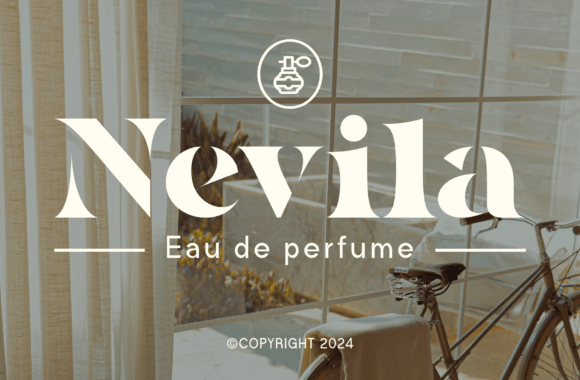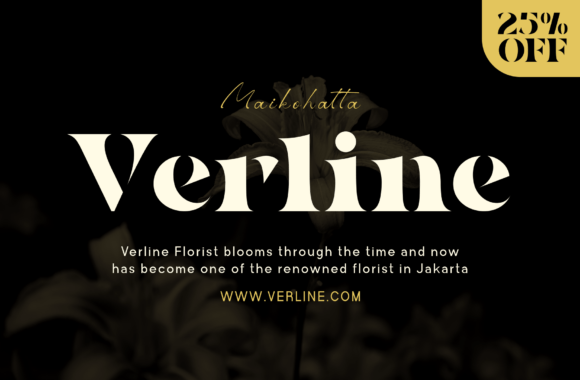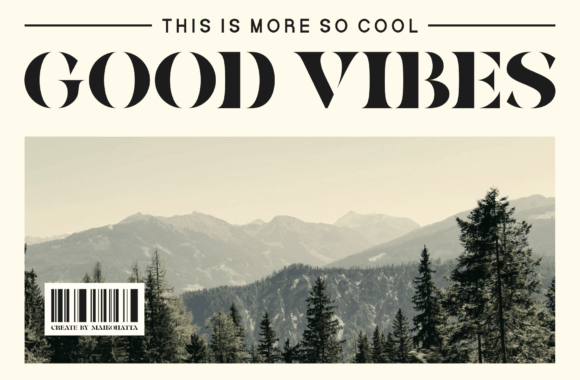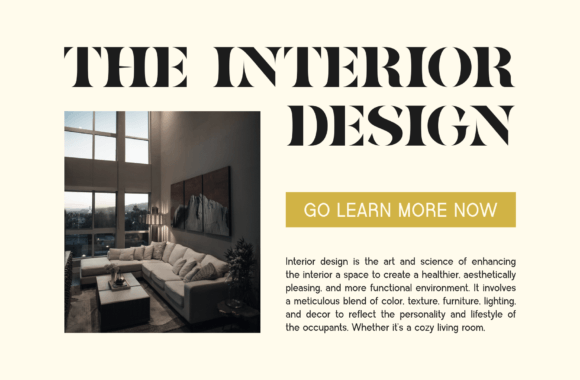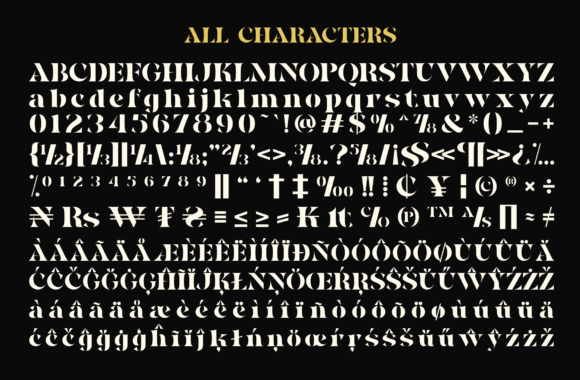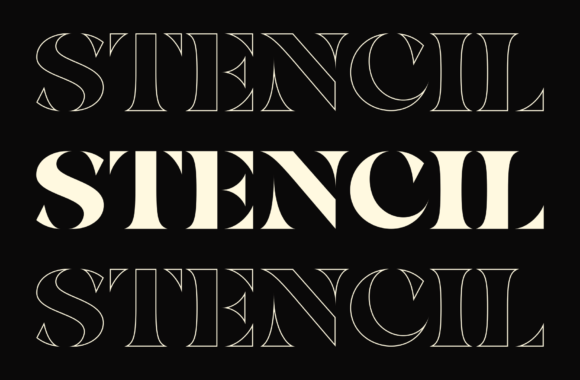
Introduction to Nolex Font Font
Fonts play a crucial role in design, and the Nolex Font font is a typeface that brings both character and versatility to any project. Whether you’re working on a branding project, a website, or a print design, the Nolex Font font offers a unique style that can elevate your work.
Introducing our new product **Nolex** β Serif Stencil Display This font is characterized by its unique typography style, which features distinctive attributes, namely holes or βcutoutsβ present in each letter and symbol.
The primary hallmark of stencil font is the presence of gaps or apertures around the edges of the characters This font serves various purposes, particularly in designs that require a special appearance with a robust, assertive, and characteristic touch.
Key Features of Nolex Font Font
Why Choose Nolex Font Font?
The Nolex Font font is more than just a typeface β it’s a design tool that helps you communicate your message with style and clarity. Its unique character set and versatile design make it suitable for a wide range of applications, from elegant invitations to bold headlines.
With its carefully crafted letterforms and balanced proportions, the Nolex Font font ensures readability and visual appeal across all mediums.
What makes Nolex Font font special?
The Nolex Font font stands out with its unique design, exceptional readability, and versatility across various design applications.